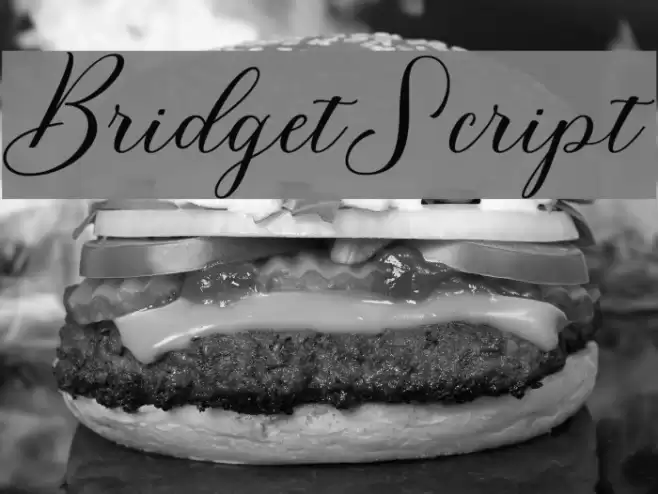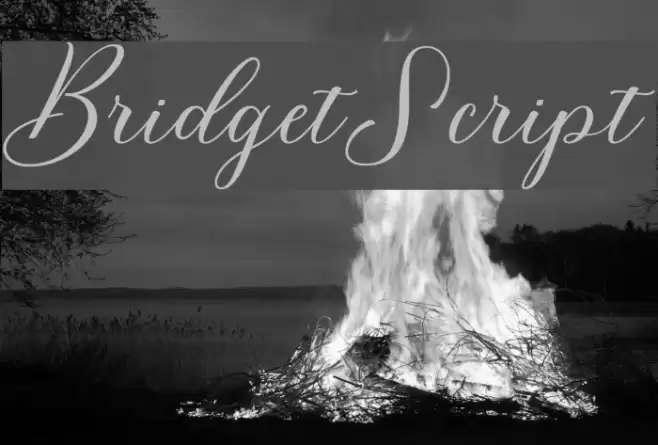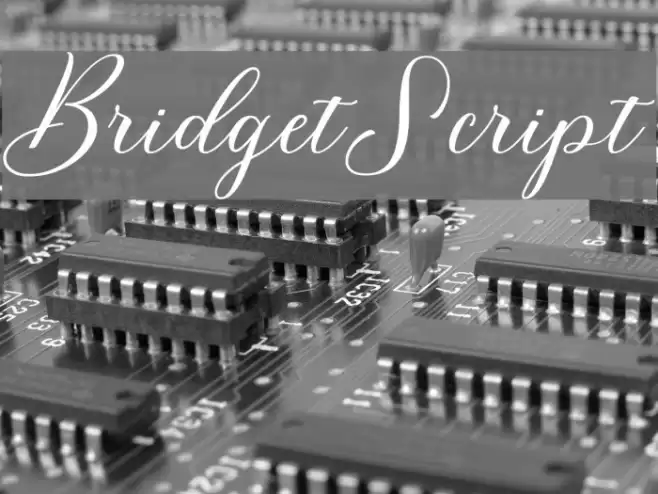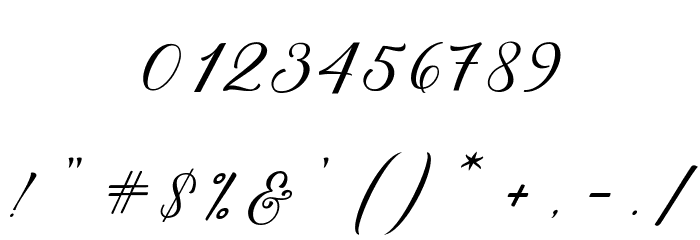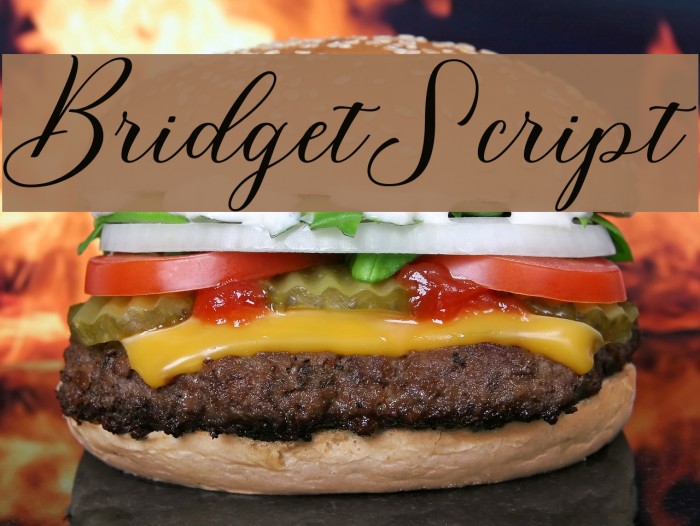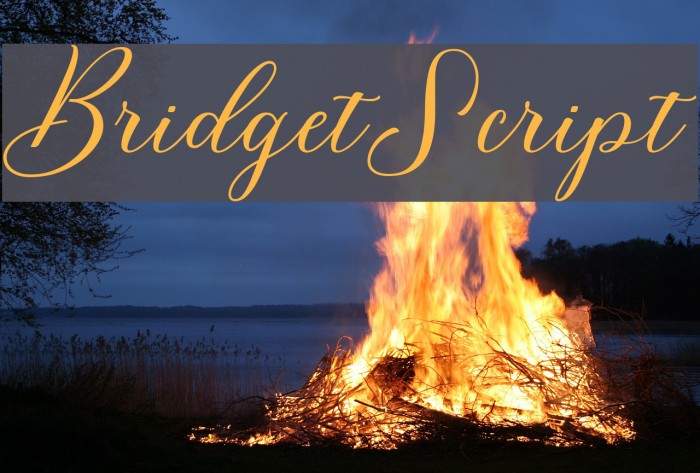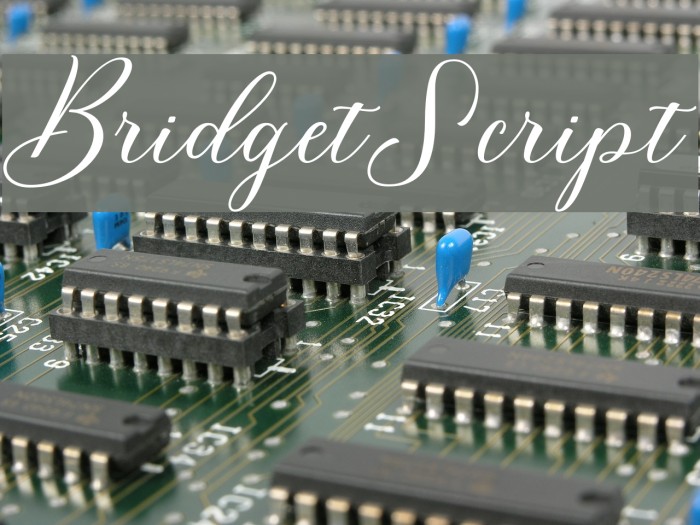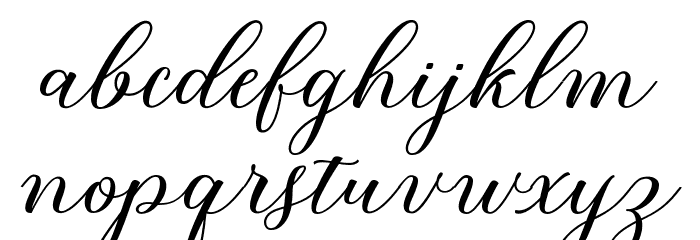
BridgetScript Font
BridgetScript Description
This elegant script font features flowing, cursive letterforms that exude a sense of sophistication and grace. The uppercase letters are characterized by their sweeping curves and delicate flourishes, while the lowercase letters maintain a consistent slant and smooth connections. The numerals are stylishly integrated with the overall design, maintaining the same fluidity and elegance. Special characters are thoughtfully crafted to complement the script style, adding versatility to the font. The overall impression is one of refined beauty, making it suitable for formal and decorative applications.
An elegant script font with flowing, cursive letterforms and sophisticated style from Uncategorized fonts.
- Proposed Projects: Ideal for wedding invitations, elegant branding, greeting cards, and high-end product packaging.
- Overall Style: Elegant, Decorative
- Use Case: Logos, Invitations, Decorative text